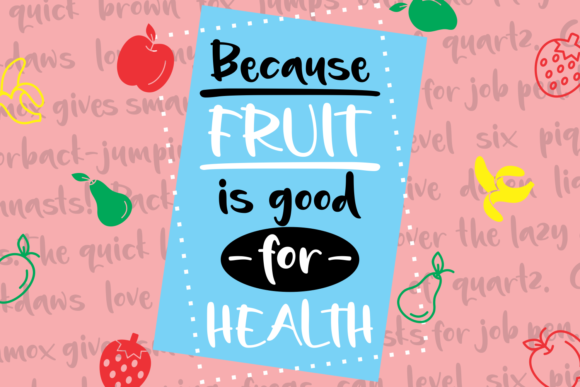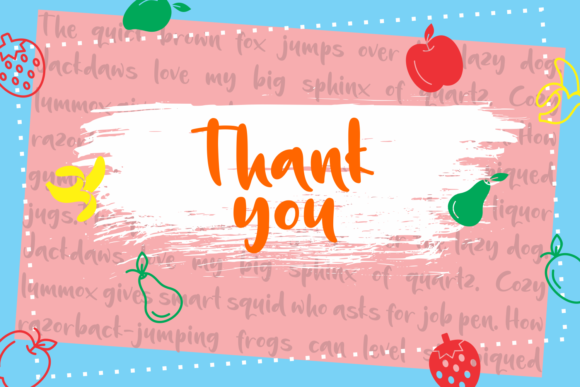
Freshness Font
About Freshness Font
The Freshness is a fun and playful typeface. It has bold letters with a good readability. Perfect for adding a childlike touch to your designs!